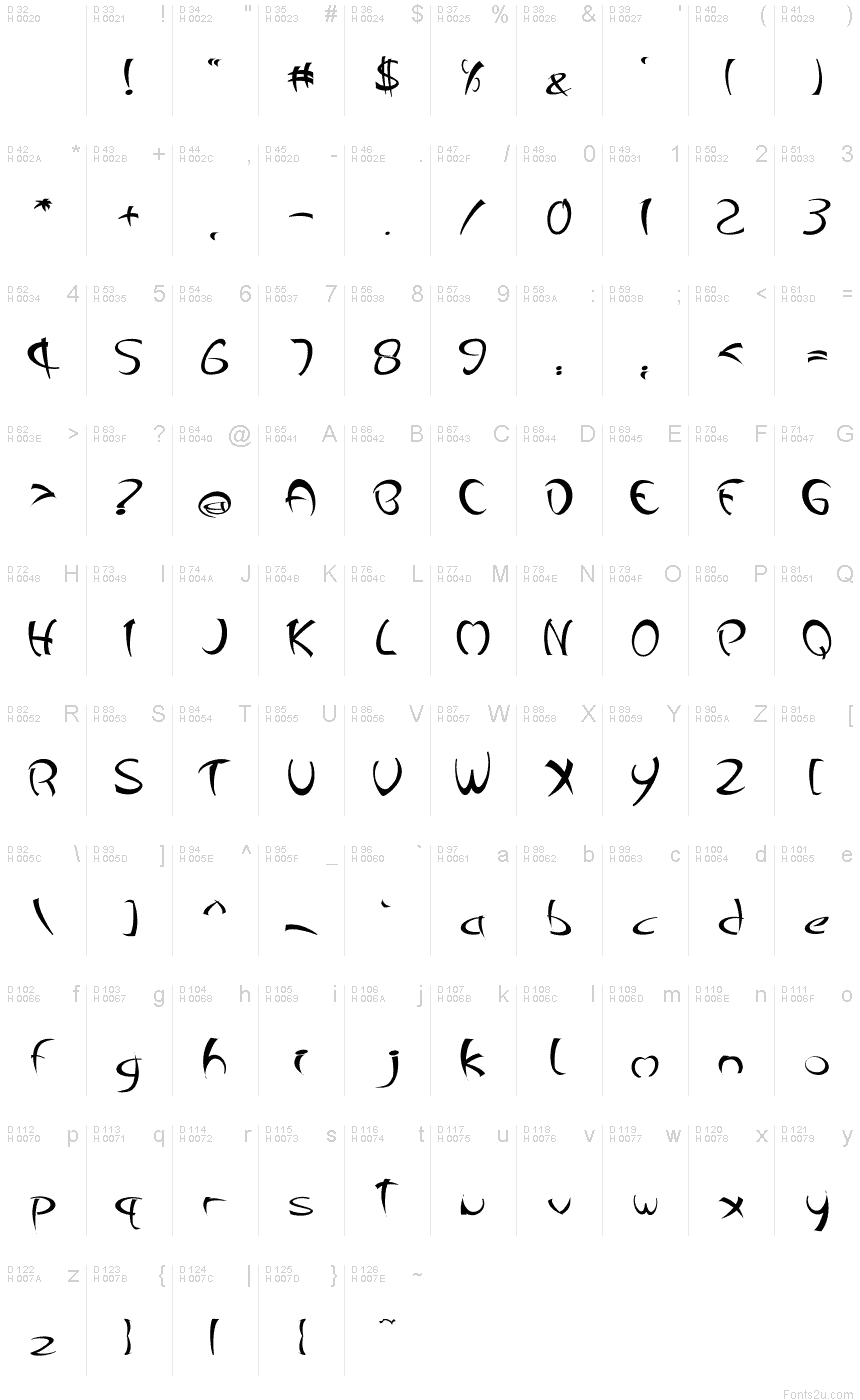
Changstein
Changstein font by Chris Brown is a free comic display typeface that twists hand-drawn energy into sleek, inky curves. Its letters swoop and taper like brushstrokes, with dramatic flares and unexpected angles that feel both playful and slightly mysterious. The uneven rhythm and tall, flicked shapes give words a sense of motion, as if they’ve just been written in one confident sweep.
Using Changstein, headlines instantly gain character-great for comic titles, fantasy posters, game logos, quirky branding, and cafe or bar menus. This free font also shines on event flyers and YouTube thumbnails where you want something expressive but still readable. For balance, pair Changstein with a clean geometric sans in smaller supporting text and let Changstein handle the bold, oversized moments.
The name CHANGSTEIN is a comedic, and perhaps unlikely, blend of Asian and Jewish cultures. This has nothing to do with race or creed, it just struck me as a funny mix. (go figure!)